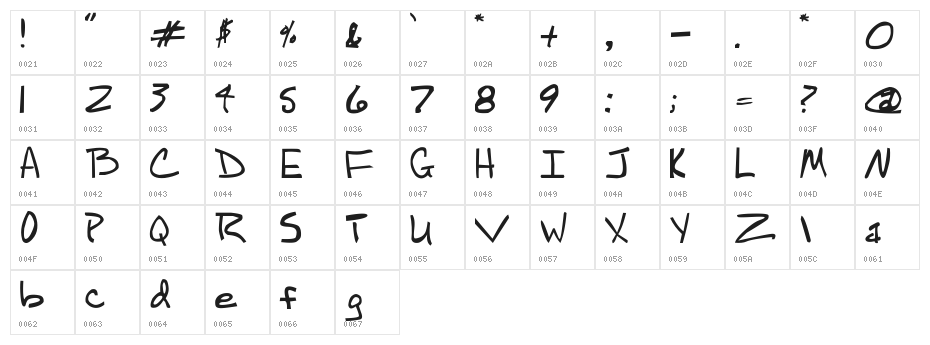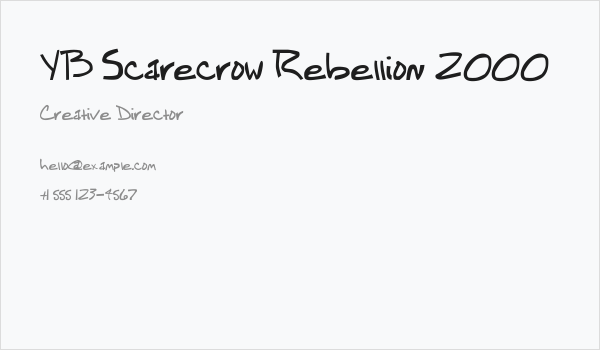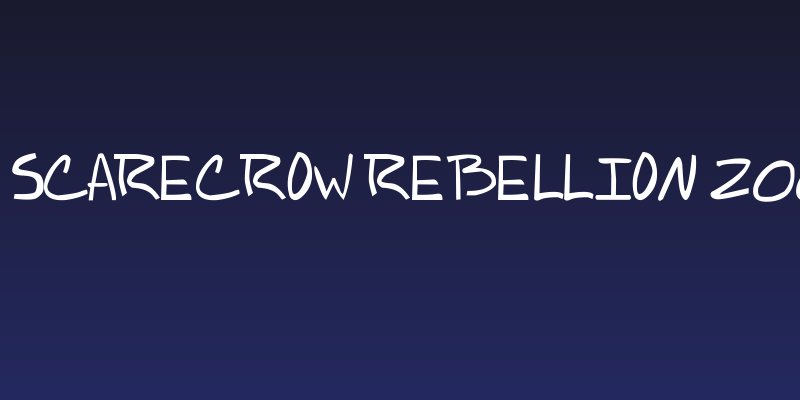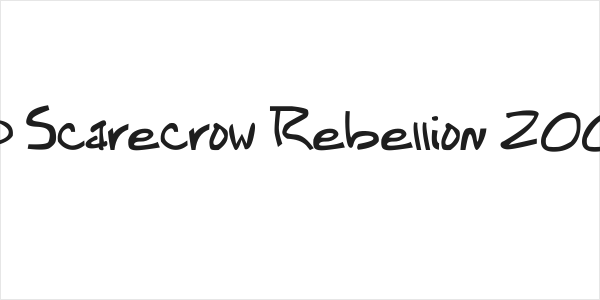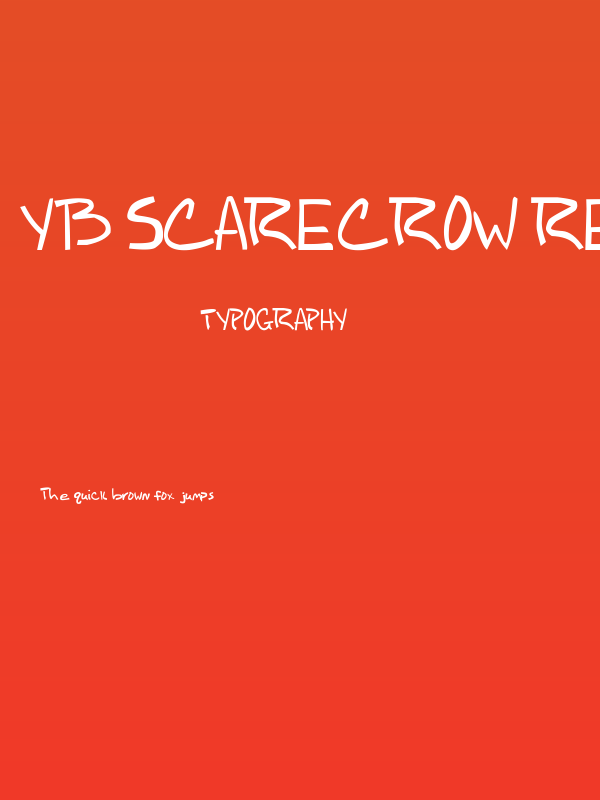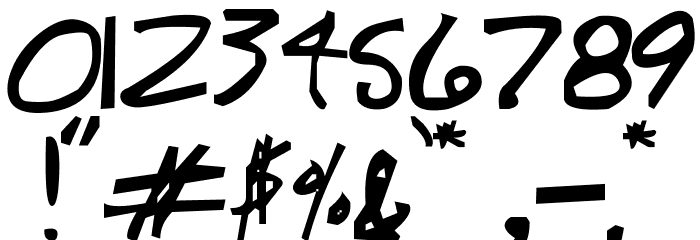
YB Scarecrow Rebellion 2000 Font
YB Scarecrow Rebellion 2000 Description
This font exudes a playful and rebellious spirit, characterized by its hand-drawn, uneven strokes that give it a lively and dynamic appearance. The letters are slightly tilted and vary in size, adding to its informal and whimsical nature. The uppercase and lowercase letters maintain a consistent style, with exaggerated curves and angles that create a sense of movement. The numerals and special characters follow the same energetic design, making the font suitable for creative and expressive projects. Its distinctive style is perfect for capturing attention and conveying a sense of fun and spontaneity.
| Overall Style | Playful, Whimsical |
| Proposed Projects | Ideal for children's book covers, playful posters, creative branding, and informal invitations. |